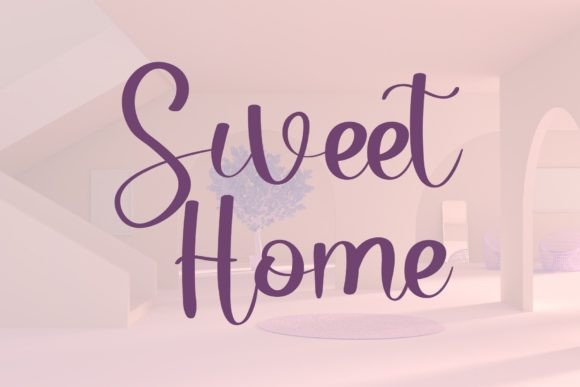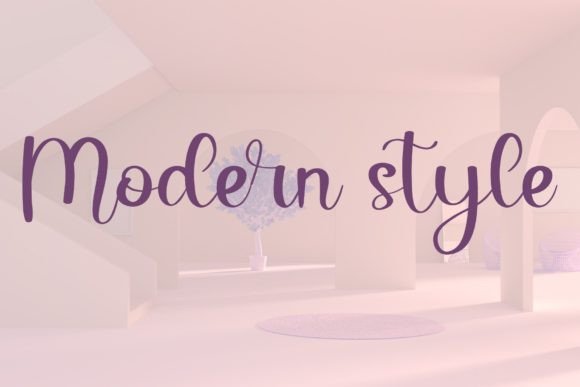
About Minimalist Font
Minimalist is a captivating and romantic calligraphy script font that introduces a sweet and enchanting touch to your creative endeavors. With characters that appear to gracefully dance along the baseline, this font emanates a sense of movement and fluidity, creating a visually engaging experience. It serves as the perfect choice to infuse a fresh and clean accent into any design or project you aim to develop.
The playful and whimsical nature of Minimalist makes it a versatile companion for a variety of creative pursuits. Whether you’re working on wedding invitations, love notes, branding materials, or any project that seeks a touch of romance, Minimalist effortlessly integrates to enhance the overall aesthetic. The calligraphic strokes communicate a sense of warmth and personalization, making it an ideal selection for expressing emotions and establishing a heartfelt connection with your audience.
Imagine incorporating Minimalist into your designs and visualize how it effortlessly elevates your content. The characters in this script font transcend mere letters; they become expressive elements that breathe life into words. Each stroke is meticulously crafted to evoke a sense of simplicity and elegance, contributing to the overall mood and sophistication of your design.
Beyond its romantic charm, Minimalist boasts versatility that extends into branding projects, adding a touch of sophistication to your logo or promotional materials. Its clean aesthetic makes it a standout choice for projects where you aim to convey a sense of modernity and refinement.
As you explore the possibilities with Minimalist, you’ll discover its seamless integration into various design themes, enhancing the visual appeal of your creations. Its ability to evoke a feeling of simplicity and romance makes it a font that not only communicates words but also emotions.
In conclusion, Minimalist is more than a script font; it’s a design element that infuses simplicity and romance into your projects. Whether you’re creating something modern, elegant, or heartfelt, let Minimalist be the brushstroke of emotion that brings your creative vision to life, adding a fresh and clean accent to every detail.